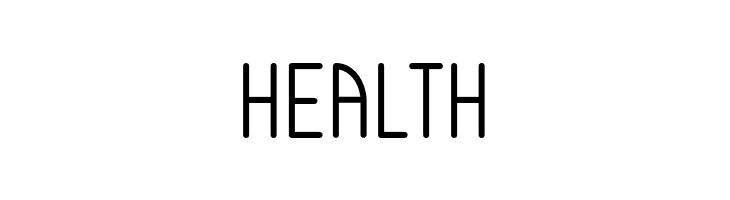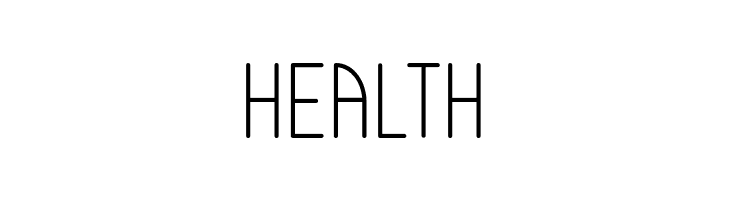
A bold, italicized handwritten font with a dynamic and energetic style.
A bold, italicized handwritten font with smooth, flowing strokes.
A bold, collegiate-style font with strong, block-like characters.
A bold, modern sans-serif font with clean lines and balanced spacing.
A sleek, modern italic font with clean lines and a dynamic appearance.
A sleek, Art Deco-inspired font with tall, narrow characters and geometric shapes.
A sleek, Art Deco-inspired font with elongated, geometric characters.
( Adrián Yanes )
A tall, narrow font with a modern and elegant style.
( Fonts by Guillaume )
A bold, geometric font with a futuristic and digital aesthetic.